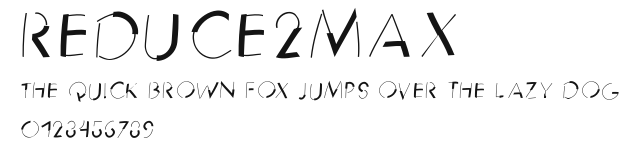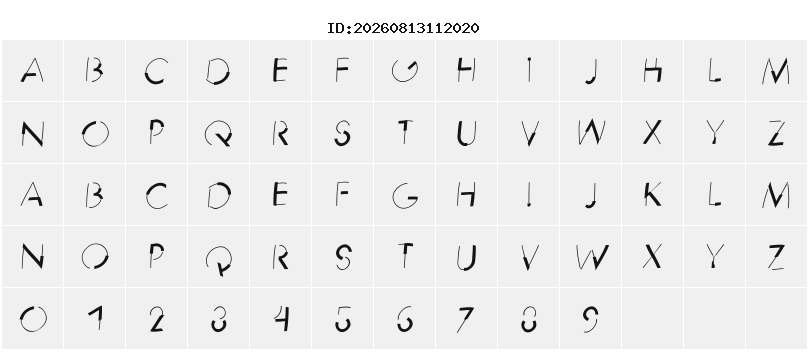
• Font Name: Reduce2Max
• Font Style: Medium Italic
About Reduce2Max.ttf
Reduce2Max.ttf is a modern, elegant sans-serif font designed for ultimate readability and visual harmony. Perfect for branding, headlines, web design, and print materials.